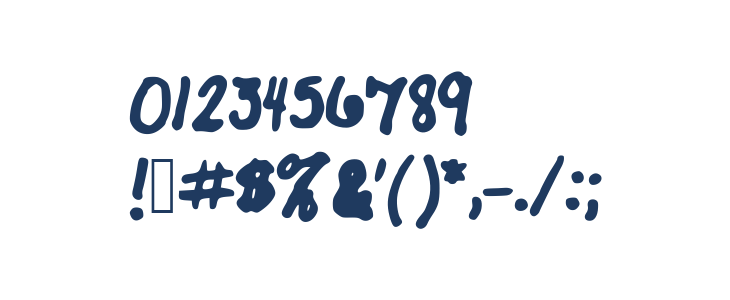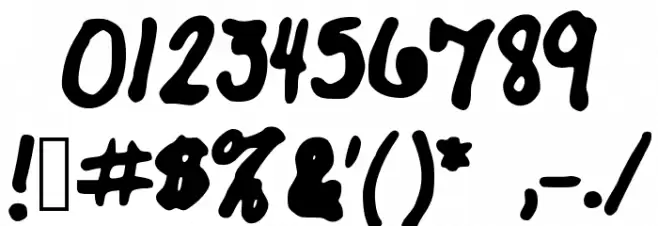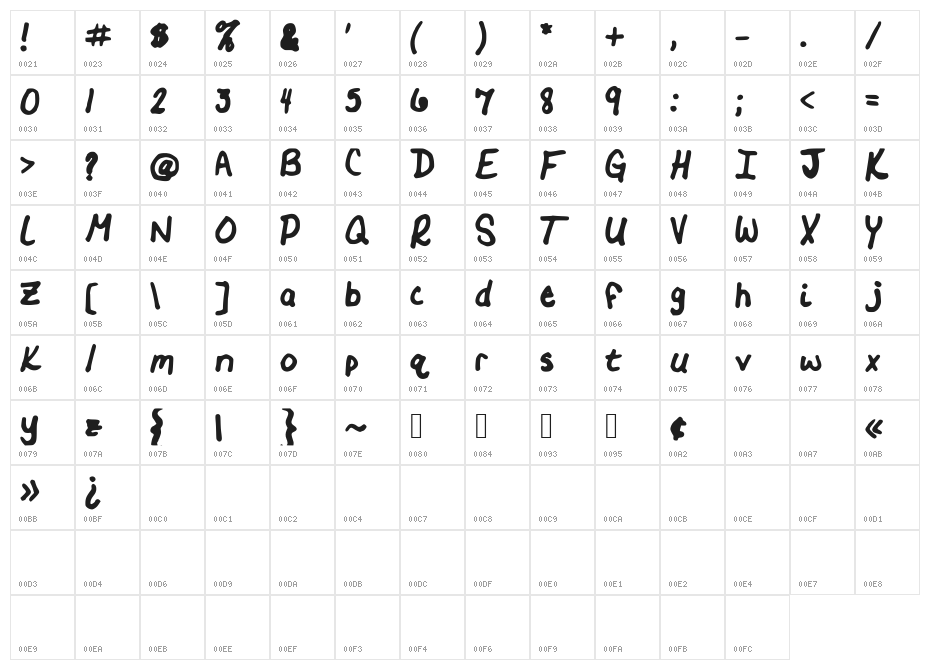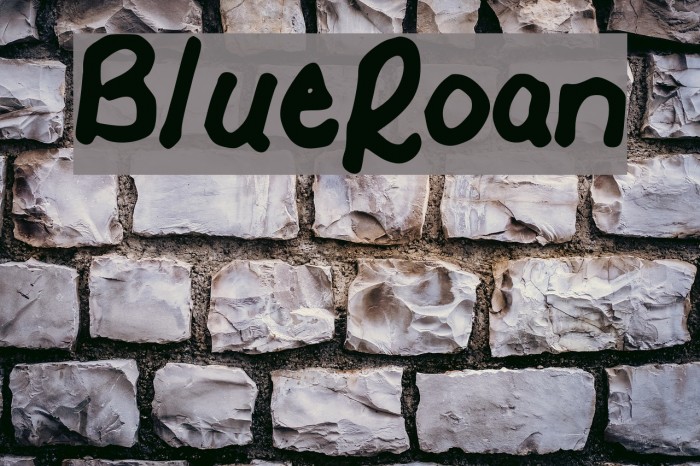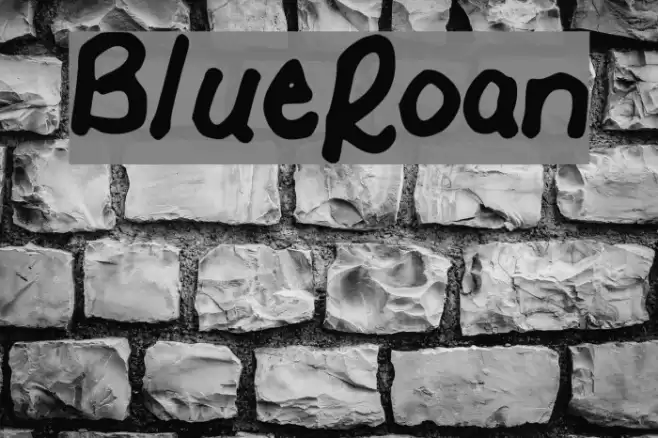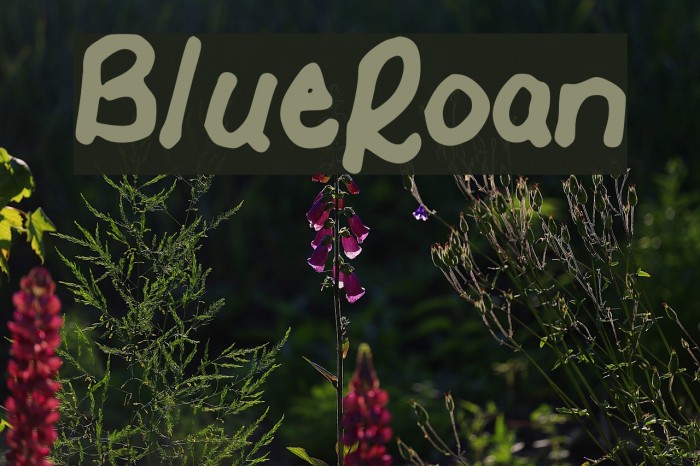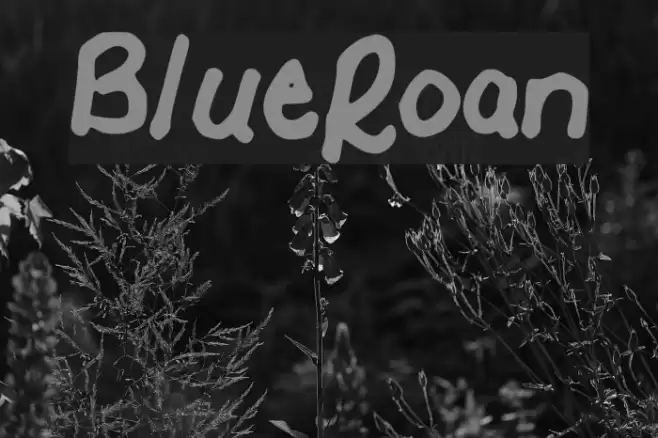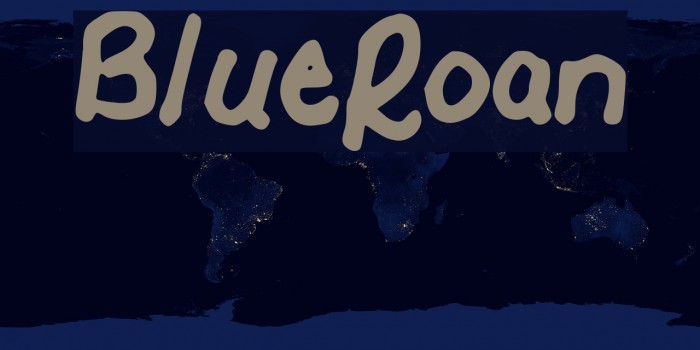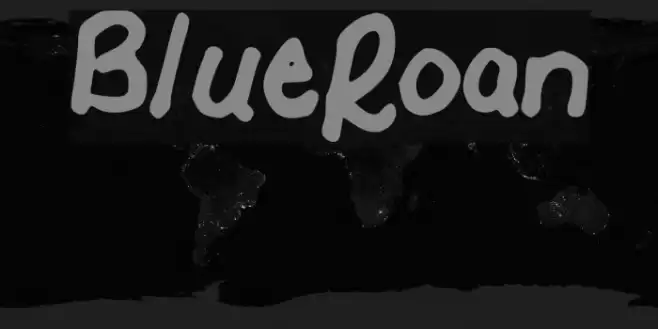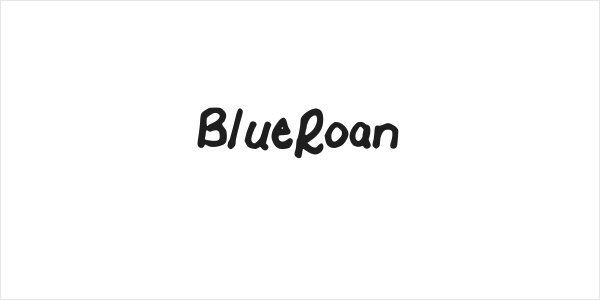
BlueRoan Font
BlueRoan Description
This font features a playful and bold handwritten style, characterized by its thick strokes and slightly irregular shapes. The letters have a casual, friendly appearance, with rounded edges and a consistent flow that mimics natural handwriting. The uppercase and lowercase letters maintain a cohesive look, while the numerals and special characters complement the overall design. This font's informal and approachable nature makes it suitable for creative and fun projects.
| Proposed Projects | Ideal for children's books, greeting cards, playful branding, and social media graphics. |